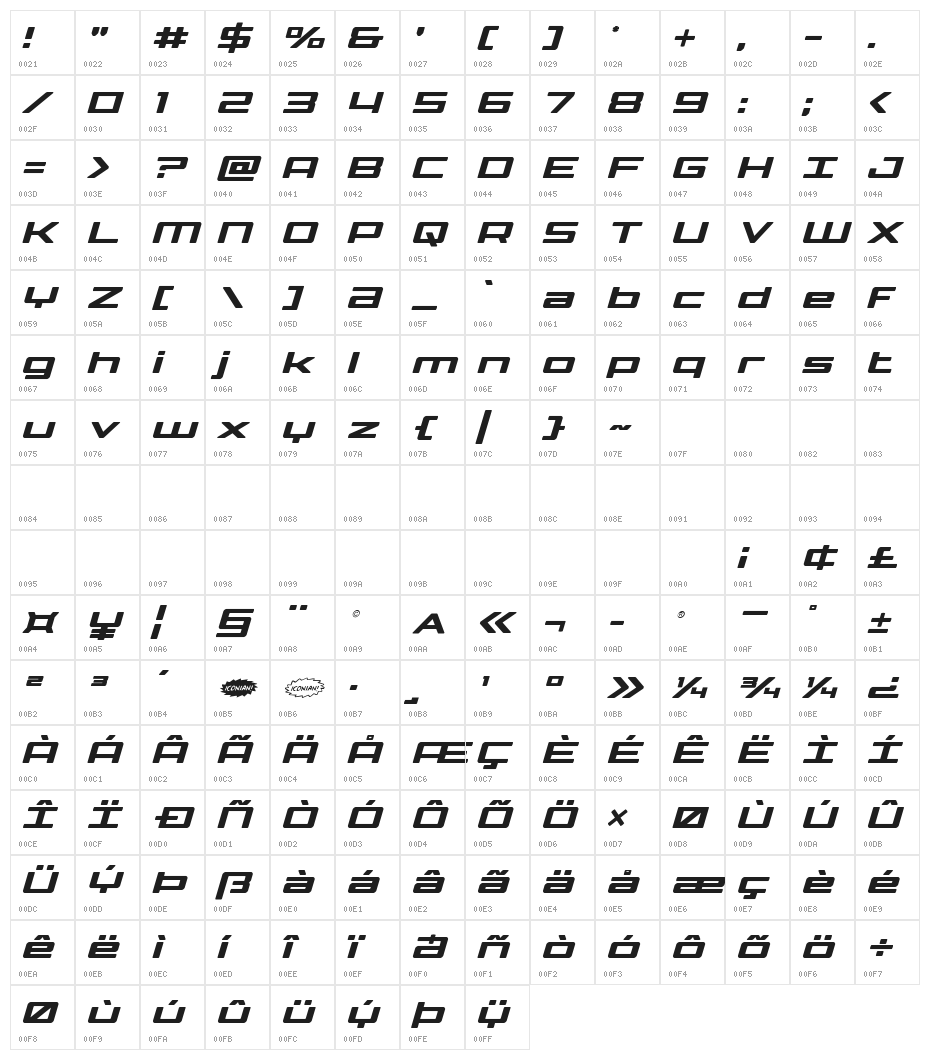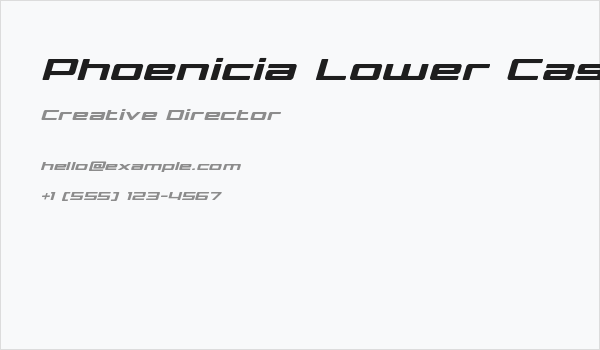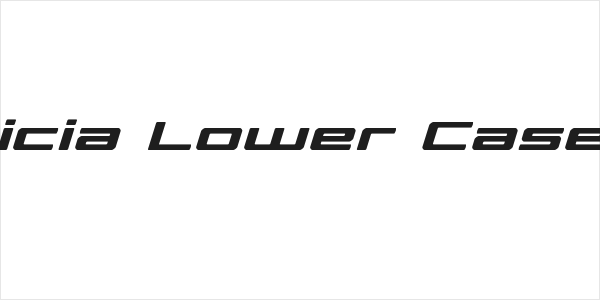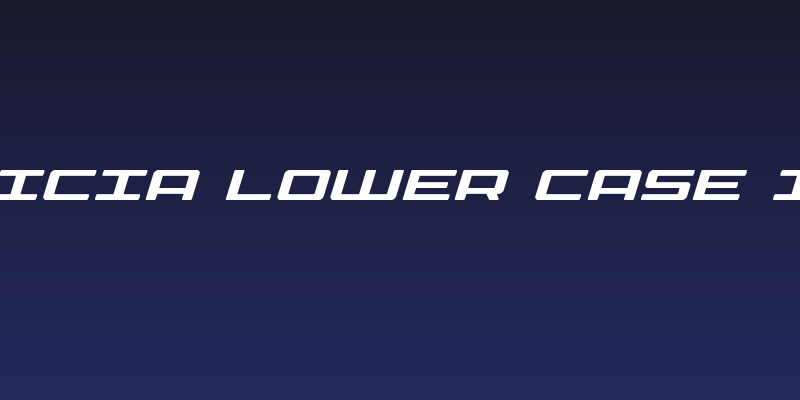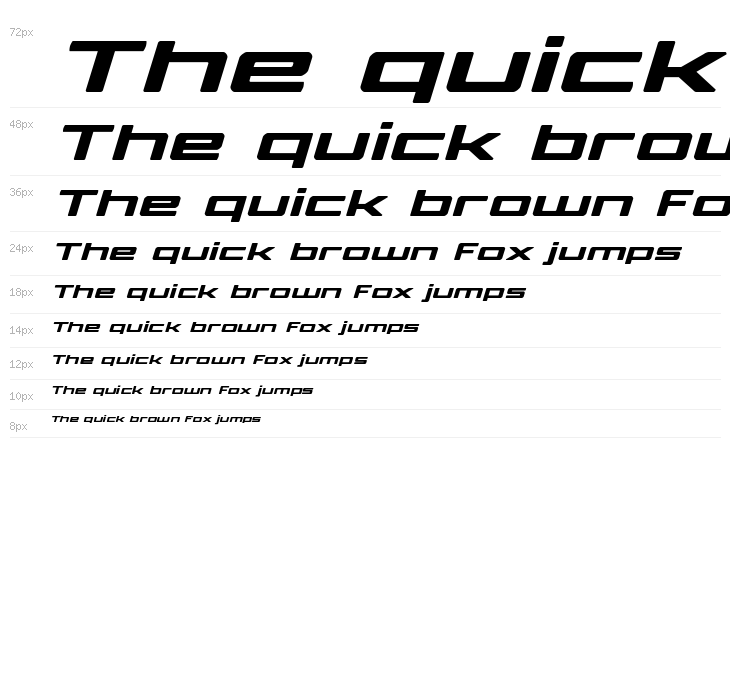
Phoenicia Lower Case Italic Font
Phoenicia Lower Case Italic Description
This font features a sleek, modern design with a distinct italic slant, giving it a dynamic and forward-moving appearance. The characters are crafted with precision, showcasing a geometric structure that balances sharp angles with smooth curves. The uppercase letters maintain a consistent height, while the lowercase letters exhibit a slightly more playful and varied form. Numbers and special characters are designed to complement the overall aesthetic, ensuring readability and style. The font's clean lines and contemporary feel make it suitable for a variety of design applications.